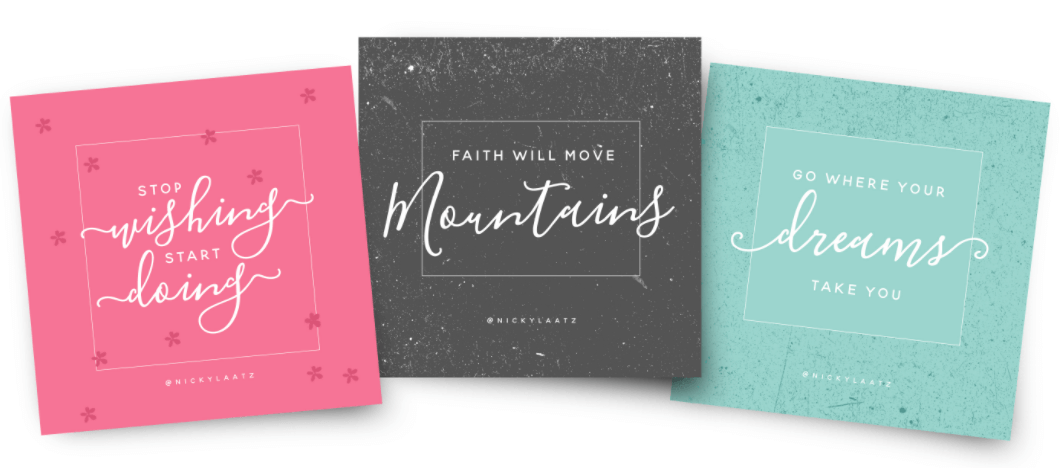
Blooming elegant font trio is a satisfying little font circle of relatives with an elegant but playful nature.
This elegant script font is a hand-lettered modern calligraphy script with a playful but fashionable nature.
It comes in three variants: regular, mono-line, and mono-line ambitious. The script fonts include OpenType stylistic alternates for all lowercase letters, and a spread of ligatures to add some authenticity to your designs.
This tremendous font was designed with the aid of Nicky Laatz. Included along with it there is another beautiful font called adelliya script, but this is a sans font: a neat and robust uppercase sans font for greater formal-natured designs, and a jaunty, playful uppercase handwritten sans for extra casual designs. You can download this font for free right here for personal use only.